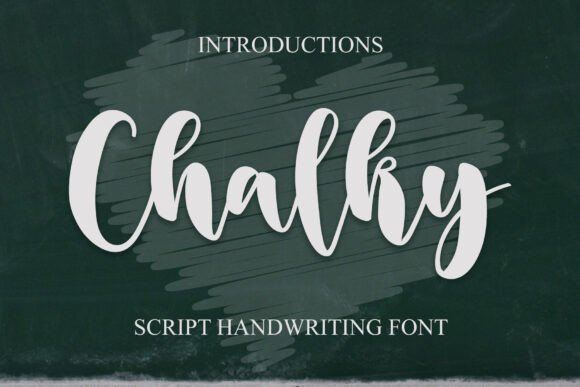
Introducing Chalky Font: A Delicate, Elegant, and Flowing Handwritten Font
Are you looking for a font that can add a touch of elegance and sophistication to your designs? Look no further than Chalky Font, a beautiful handwritten font that is perfect for a wide range of projects. With its delicate, flowing lines and incredibly distinct style, Chalky Font is sure to fall in love with anyone who lays eyes on it.
What is Chalky Font?
Chalky Font is a carefully crafted handwritten font that is designed to bring a touch of elegance and sophistication to your designs. Its delicate, flowing lines and unique style make it perfect for a wide range of projects, from wedding invitations and branding to packaging and advertising.
One of the standout features of Chalky Font is its incredibly distinct and timeless style. Unlike other fonts that can look dated or trendy, Chalky Font has a classic, elegant feel that will never go out of style. Whether you’re looking to create a modern and sleek design or a more traditional and vintage look, Chalky Font is the perfect choice.
Features of Chalky Font
So, what makes Chalky Font so special? Here are just a few of its key features:
- Delicate and elegant design: Chalky Font has a delicate, flowing design that is perfect for creating elegant and sophisticated designs.
- Incredibly distinct and timeless style: Chalky Font has a unique and timeless style that will never go out of fashion.
- Perfect for a wide range of projects: Chalky Font is perfect for a wide range of projects, from wedding invitations and branding to packaging and advertising.
- Experiment with different design styles: Chalky Font is versatile and can be used in a wide range of design styles, from modern and sleek to traditional and vintage.
Benefits of Using Chalky Font
So, why should you choose Chalky Font for your next design project? Here are just a few of the benefits of using this beautiful font:
- Elegant and sophisticated designs: Chalky Font is perfect for creating elegant and sophisticated designs that will impress your clients and audience.
- Unique and timeless style: Chalky Font has a unique and timeless style that will never go out of fashion.
In conclusion, Chalky Font is a beautiful and elegant handwritten font that is perfect for a wide range of design projects. With its delicate, flowing lines and incredibly distinct style, Chalky Font is sure to fall in love with anyone who lays eyes on it.